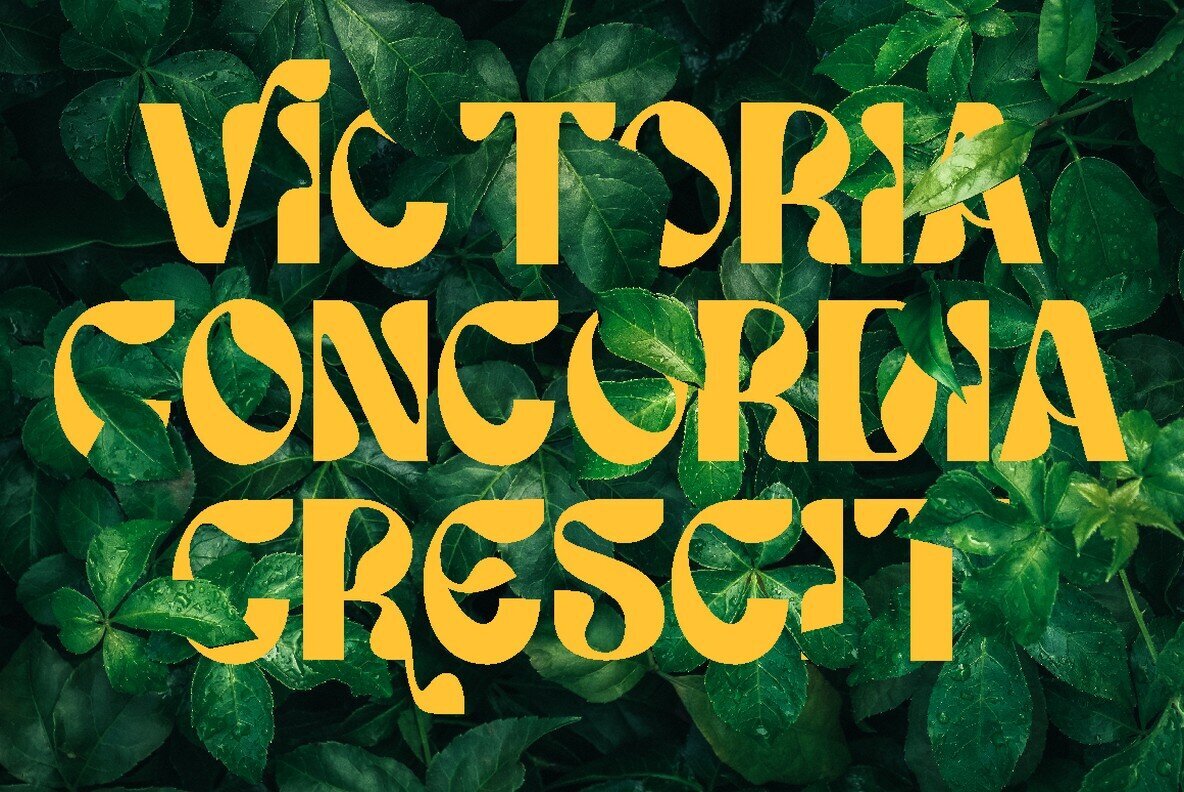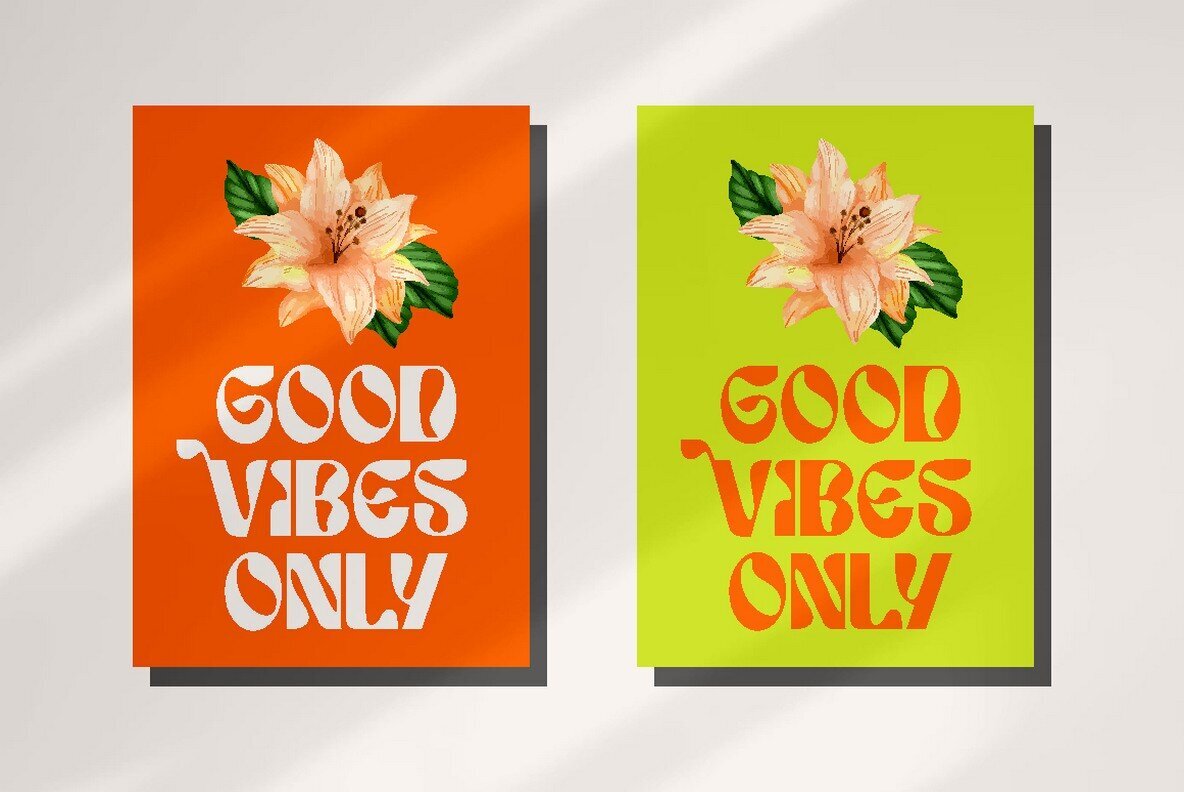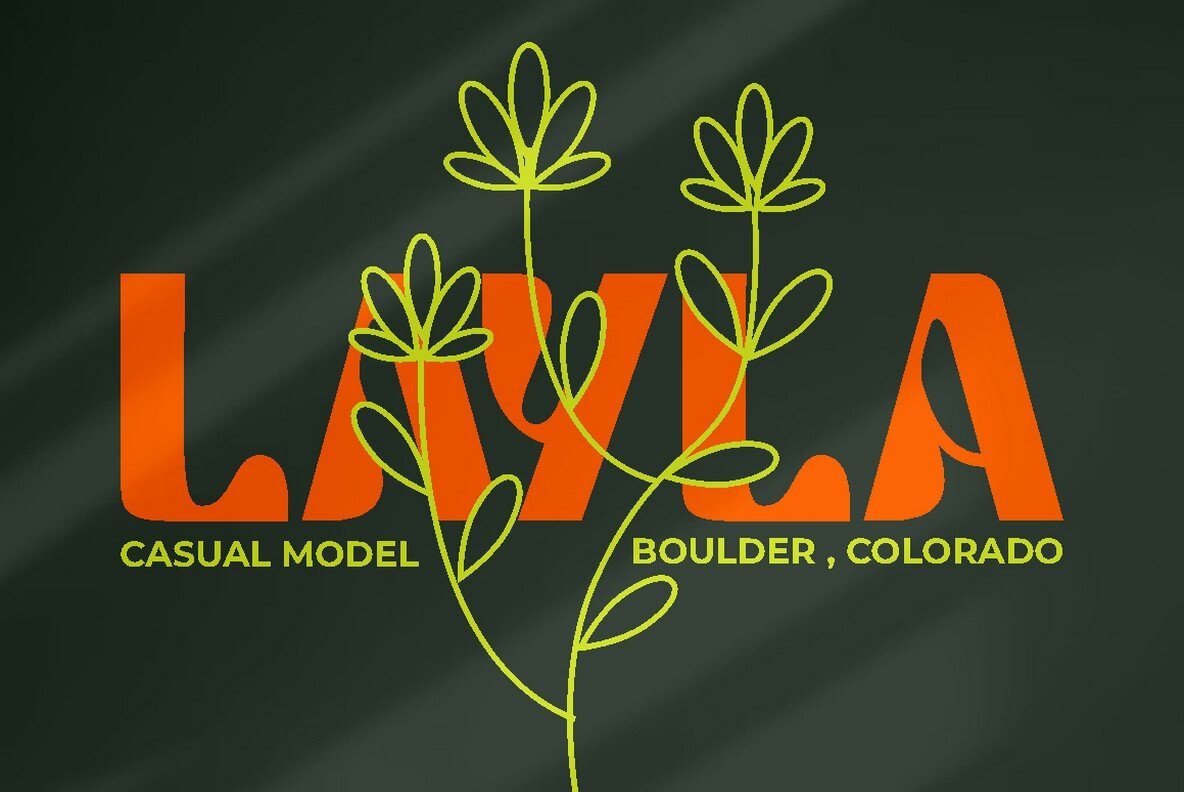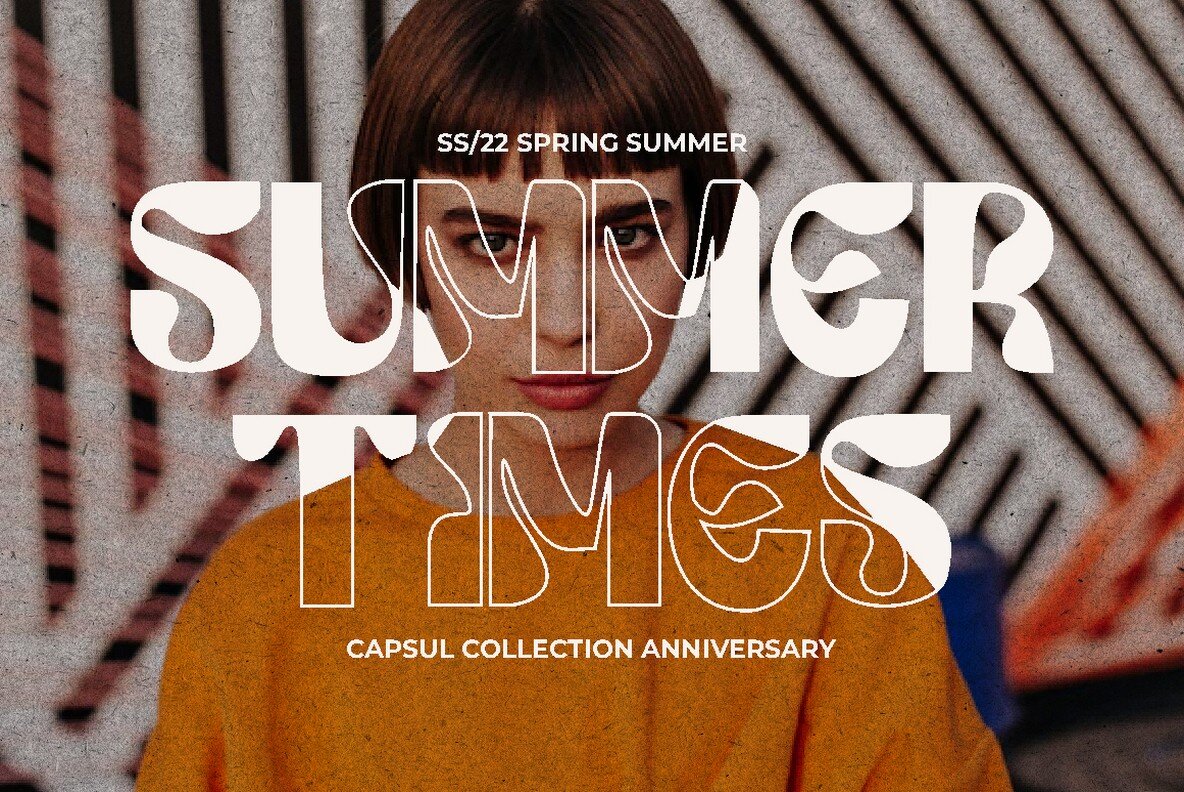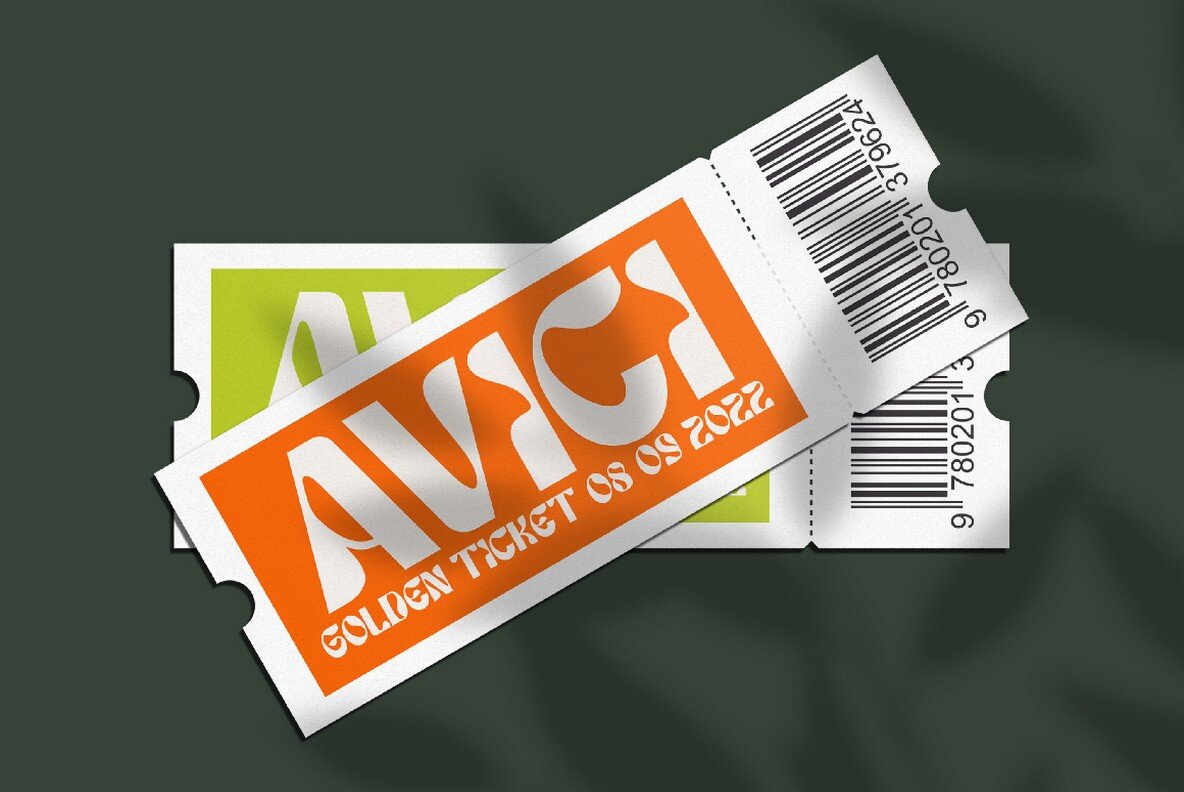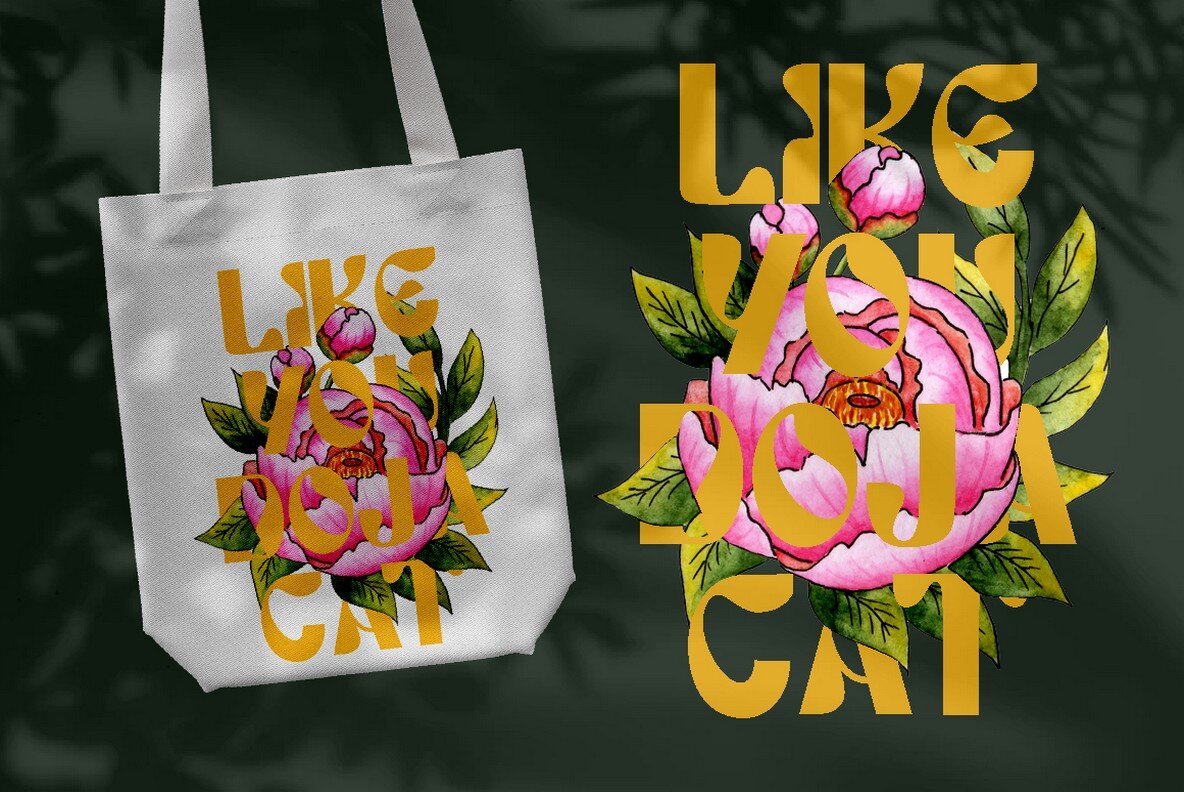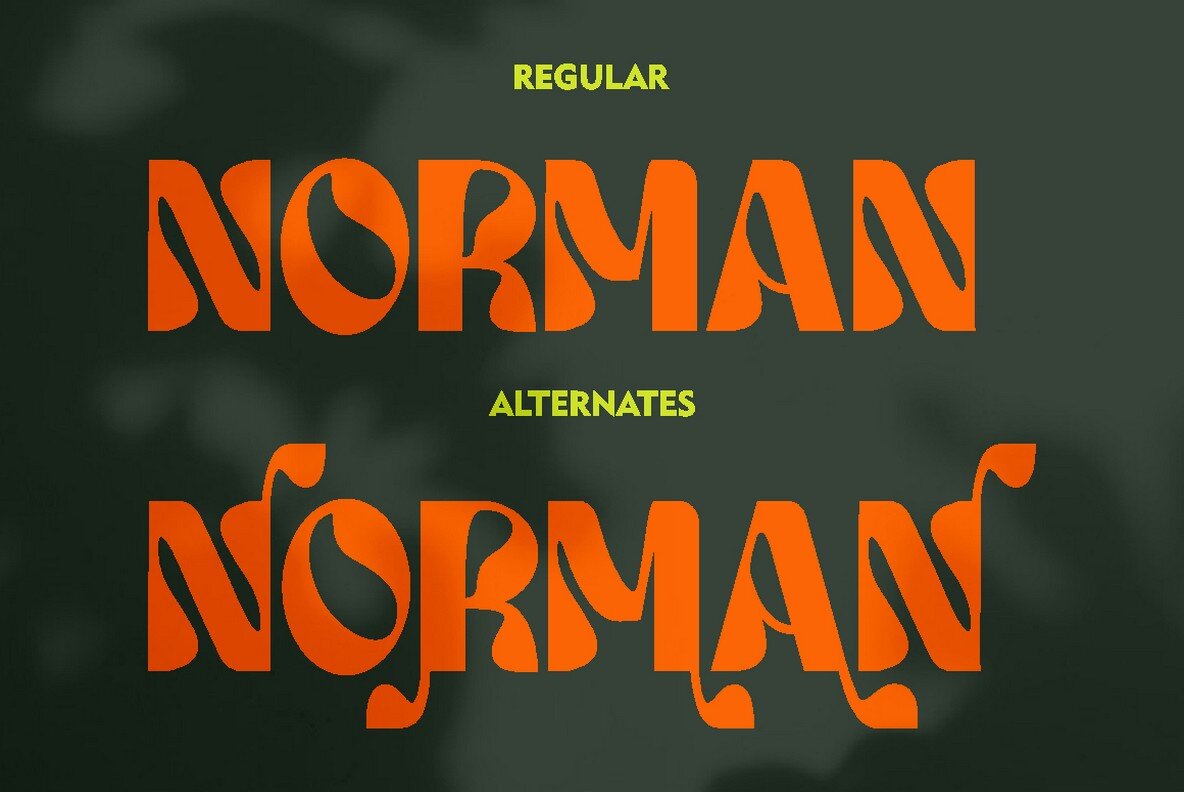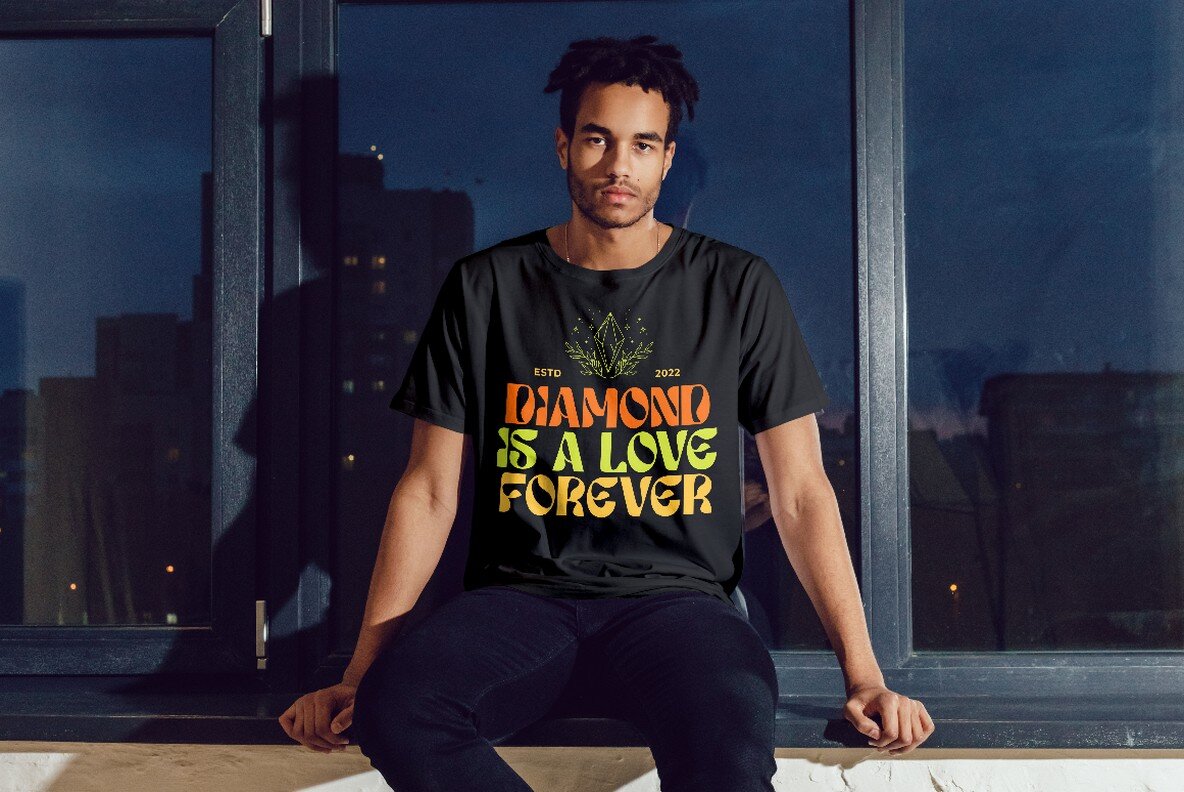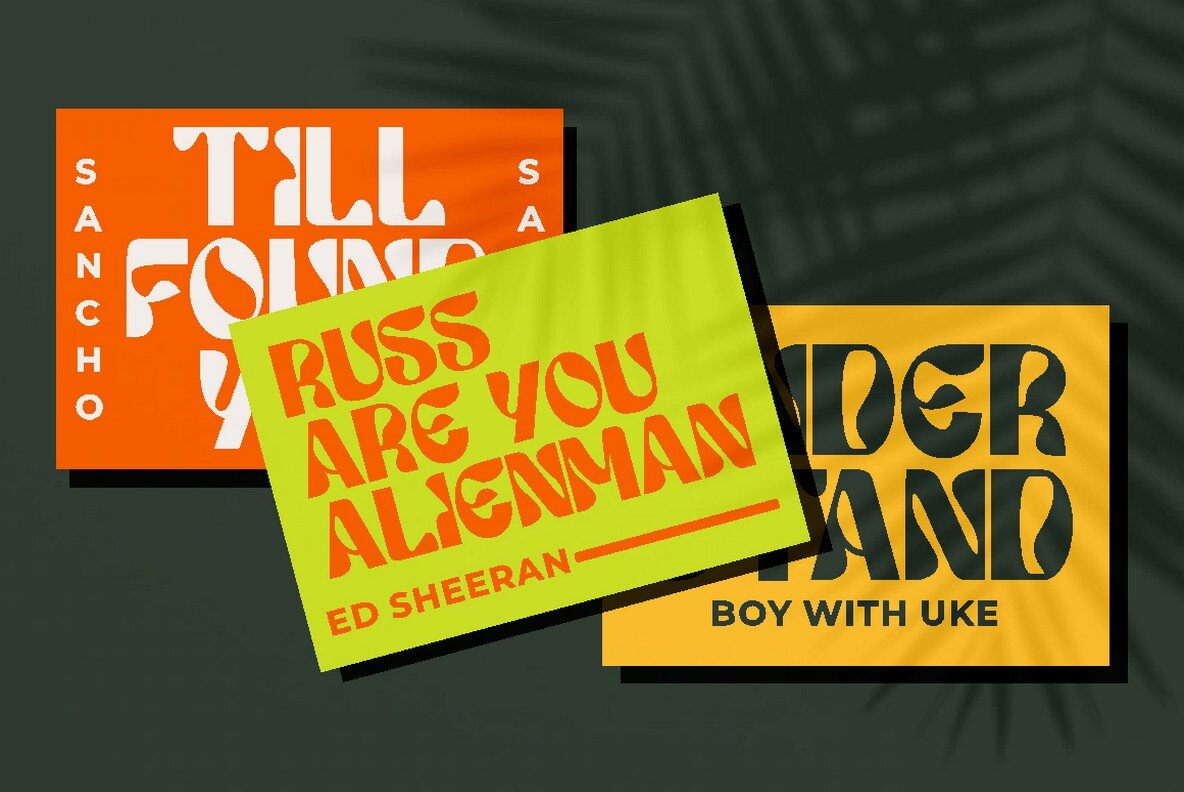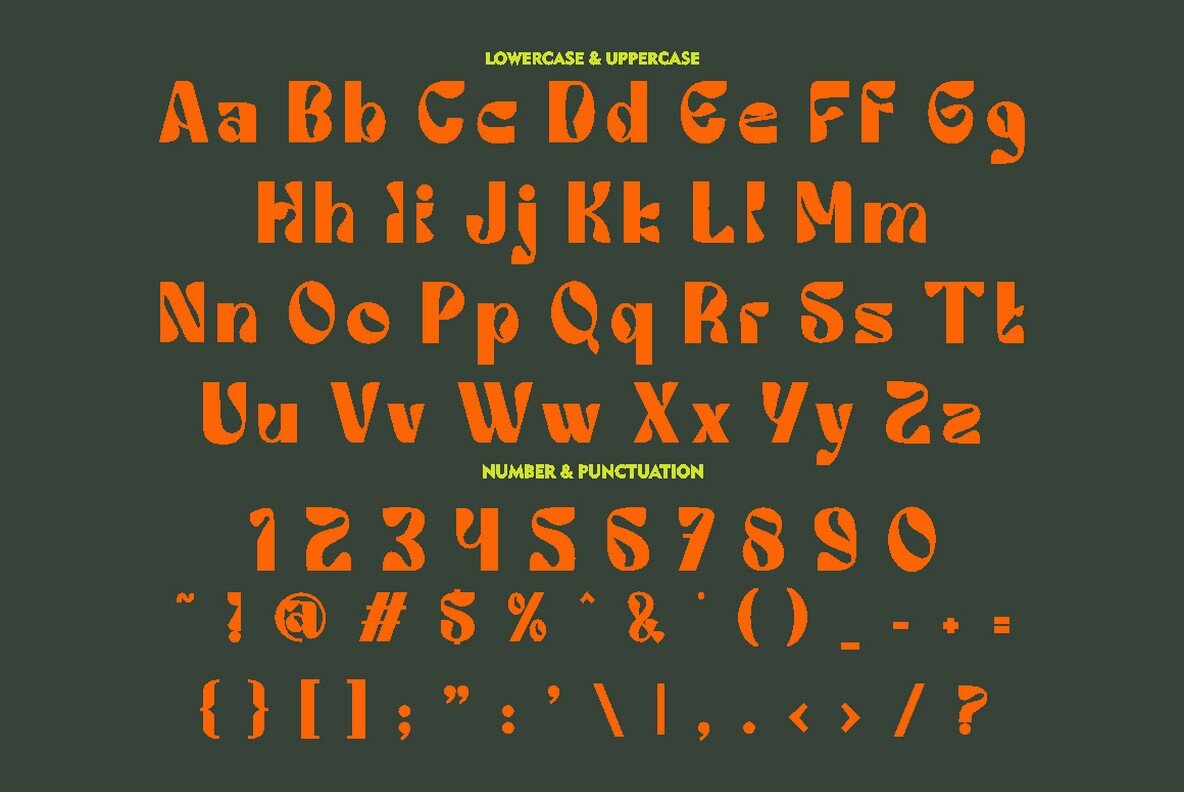
Floras Font
Floras Display Regular
Floras Display One
Floras Display Two
Rooted in the nostalgic aesthetics of 1960s music bands, Floras emerges as a display typeface that exudes a vintage allure fused with a modern twist. This font masterfully combines elements like ligatures to bring a unique and lively character to every design. Ideal for any display purpose, Floras effortlessly elevates album covers, posters, labels, and apparel designs. Its inherent charm makes it an exceptional choice for signage, logos, greeting cards, and much more. Features: Floras capitalizes on OpenType features, enabling diverse character variations with programs like Adobe Illustrator and InDesign. This typeface embodies the spirit of a groovy era, infusing it into today's creative endeavors.Floras: Vintage Groove and Classic Charm in Typography